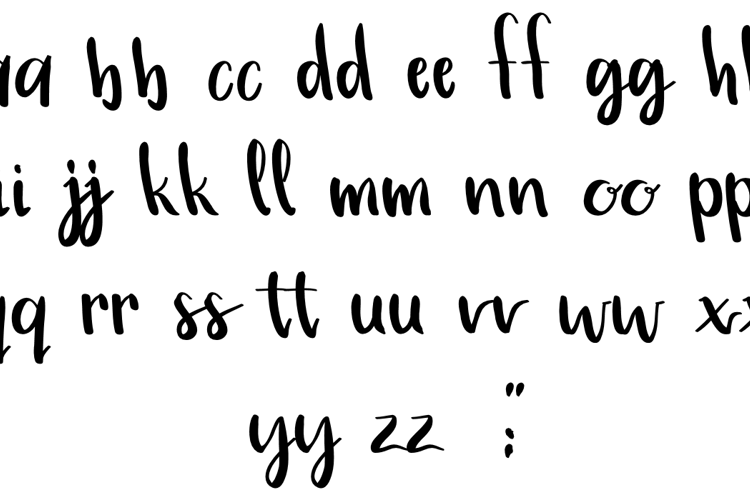
Simple Brush Script Font
About Simple Brush Script Font
Previously all of my brush lettering fonts were hand-written with various brush pens, then converted into fonts. I've begun experimenting with a tablet using pressure control and this is the first brush lettering font I have created using this process.